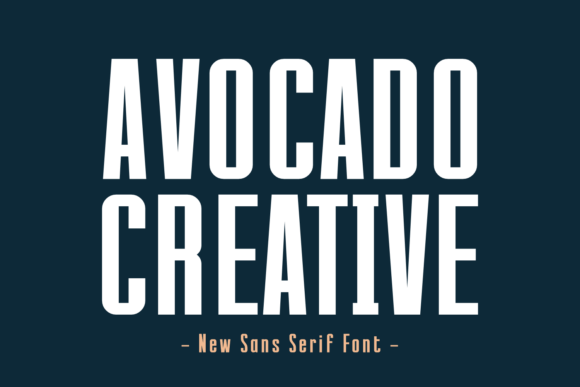
Introducing Avocado Creative Font: The Epitome of Modern Sans Serif Typography
In the realm of typography, the right font can make all the difference in the success of a design project. For those seeking a modern, distinct, and bold aesthetic, the Avocado Creative Font is an exceptional choice. This sans serif font is characterized by its tall and condensed letterforms, projecting a strong, contemporary, and somewhat edgy vibe that is sure to capture attention.
Design Characteristics of Avocado Creative Font
The Avocado Creative Font boasts clean lines with subtle variations in stroke width, giving it a unique character while maintaining good readability. One of its standout features is the slight curving on some of the charactersโ edges, particularly visible in the lowercase letters. This touch of elegance softens its otherwise bold presence, making it versatile for various design applications.
Key Features:
- Tall and Condensed Letterforms: Giving it a unique and modern appearance.
- Clean Lines with Subtle Stroke Variations: Adding character without compromising readability.
- Slightly Curved Edges: Providing a touch of elegance, especially noticeable in lowercase letters.
- Strong, Contemporary Aesthetic: Ideal for projects requiring a bold and sophisticated feel.
Applications of Avocado Creative Font
The versatility of the Avocado Creative Font makes it suitable for a wide range of design projects. Its modern and distinct style is particularly beneficial for:
- Fashion Branding: Elevate your brand with a sophisticated and trendy look.
- Magazines: Stand out with a bold and contemporary typography.
- Modern Corporate Identity: Convey a strong and edgy image for your company.
- Poster and Billboard Design: Capture attention with a clean and impactful font.
- Website Headers: Enhance your website’s aesthetic with a modern and elegant typography.
- Titles and Product Packaging: Add a touch of sophistication and boldness to your product titles and packaging.
The Importance of Typography in Design
Typography plays a crucial role in design, acting as a visual representation of a brand’s voice and personality. The right font can significantly impact how a message is perceived, making it an essential element in any design project. The Avocado Creative Font, with its unique blend of modernity and elegance, offers designers a tool to convey boldness, sophistication, and a contemporary edge.
Why Choose Avocado Creative Font?
Choosing the Avocado Creative Font for your design project comes with numerous benefits:
- Uniqueness: Stand out from the crowd with a distinct and modern sans serif font.
- Versatility: Suitable for a wide range of applications, from digital to print.
- Readability: Maintains good readability even in its condensed form.
- Elegance: Adds a touch of sophistication with its slightly curved edges.
The Avocado Creative Font is a powerful tool for designers looking to infuse their projects with a modern, bold, and sophisticated aesthetic. Its unique design characteristics, versatility, and the ability to convey a strong contemporary feel make it an excellent choice for various applications. Whether you’re working on fashion branding, magazine layouts, corporate identities, or digital content, the Avocado Creative Font is sure to elevate your design to new heights.
Embrace the Future of Typography with Avocado Creative Font